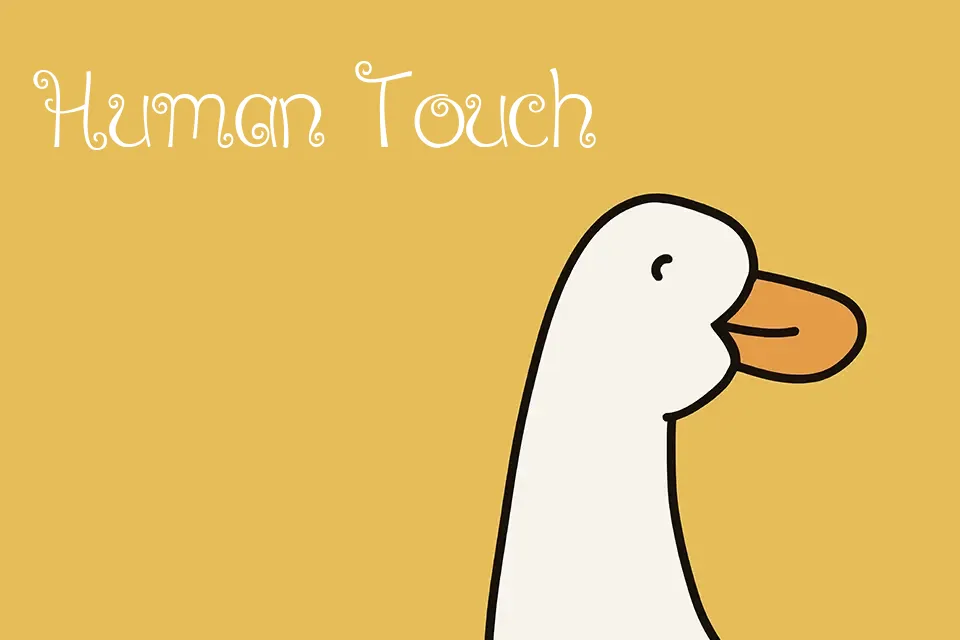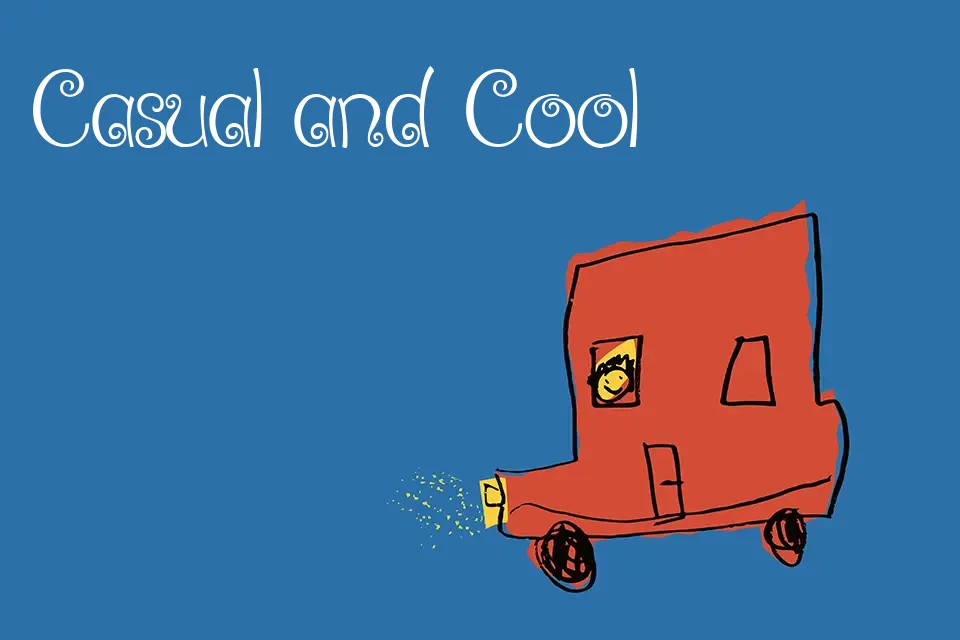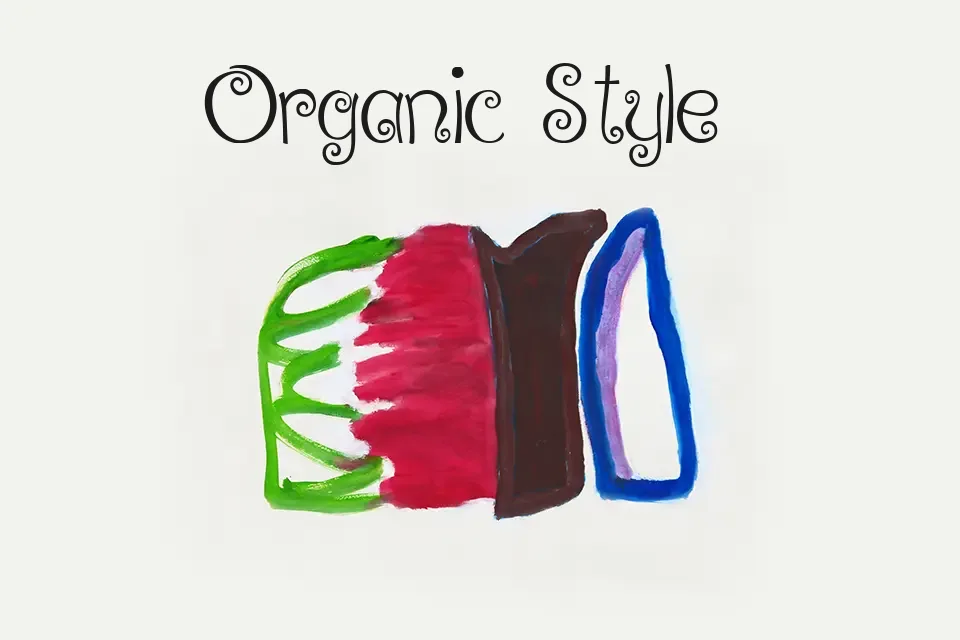
Ralphie Brown Font
Ralphie Brown Font presents a delightful handwritten aesthetic characterized by its energetic, bouncy baseline and charmingly curly terminals. The typeface displays a medium stroke contrast that balances organic fluidity with legibility, while its open spacing allows the whimsical letterforms to breathe comfortably. The generous proportions and smooth, cursive joins create a friendly and inviting rhythm across both uppercase and lowercase characters. This decorative script is best utilized for eye-catching greeting cards, whimsical packaging, and playful logo designs. The spacing helps maintain clarity in larger headlines, ensuring the text remains highly visible when scaled up. However, its highly decorative forms reduce continuous reading comfort, making the design less suitable for dense body text or long editorial paragraphs.
whimsical product packaging, children’s book covers, greeting card designs, casual boutique branding
long paragraph text, dense editorial layouts, small interface labels, corporate reports
Perfect for branding, headline, and kids, with a creative and decorative style.